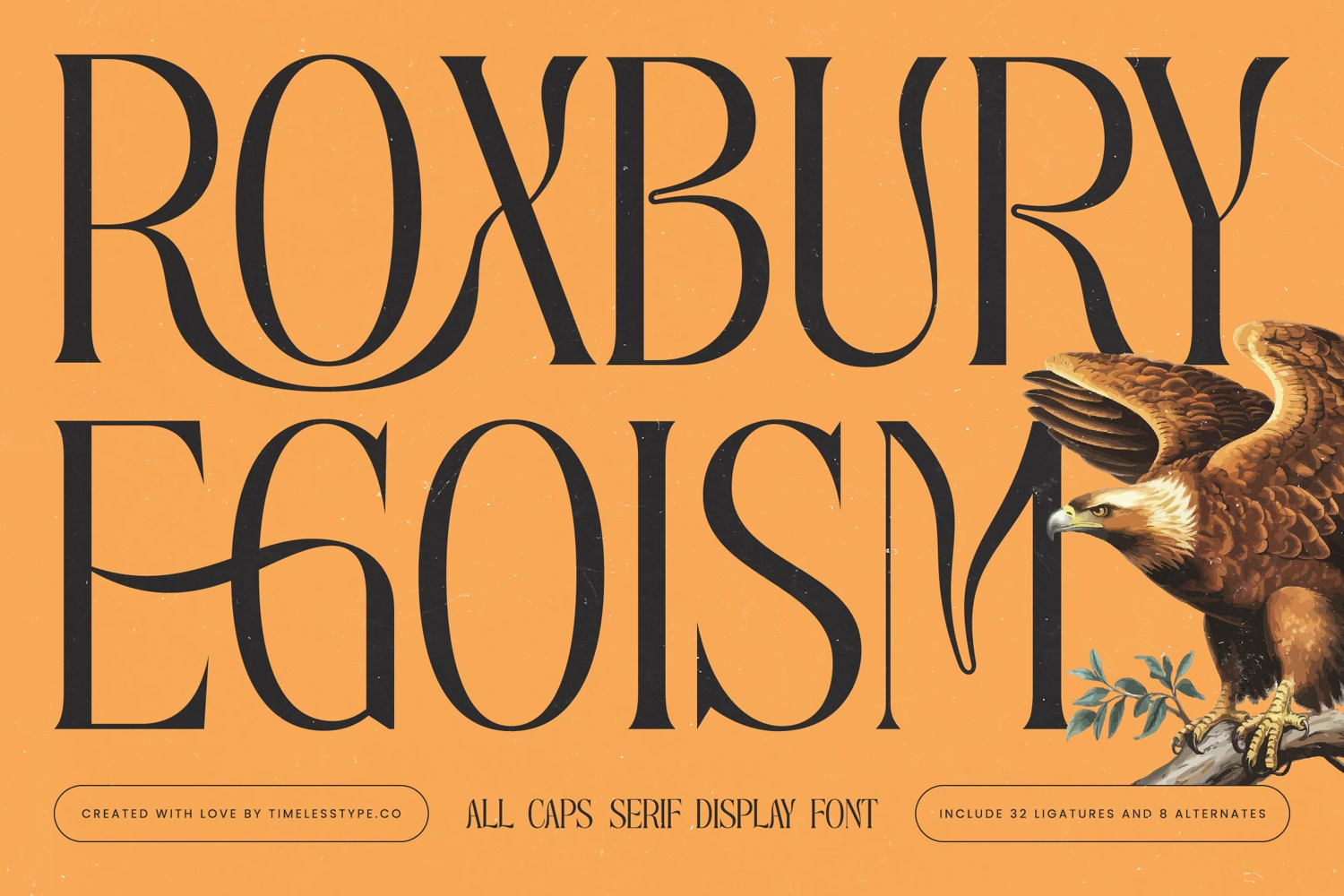
Roxbury Egoism - All Caps Serif Display Font
The Roxbury Egoism Typeface is an all-caps serif display font with a tall, sleek, and elegant style. Featuring 32 ligatures and 8 stylistic alternates, this font is designed to deliver typography that feels dramatic, refined, and full of authority. Its elongated capital letterforms, combined with decorative detailing on select strokes, create a contemporary-classic aesthetic that is ideal for designs aiming to appear strong, luxurious, and sophisticated.
This typeface is highly effective in editorial design, particularly for fashion magazine covers, artistic headlines, and art or history book covers. The inclusion of ligatures adds unique typographic variations, enhancing both elegance and modernity.
In branding and packaging, Roxbury Egoism is an excellent choice for luxury products such as perfumes, wines, jewelry, exclusive fashion, and premium lifestyle brands. Its refined aesthetic ensures a timeless, iconic, and memorable brand identity.
For entertainment and promotional design, this font shines on epic movie posters, classical or jazz album covers, cultural festivals, and theater branding. Its bold and commanding character reinforces visual storytelling with a heroic and majestic aura.
In the realm of digital design, Roxbury Egoism performs seamlessly across social media content, website branding, digital advertising, and motion graphics. With multilingual support, it is perfectly suited for diverse global projects and wide-reaching audiences.
In short, Roxbury Egoism Typeface is an all-caps serif display font created to embody strength, elegance, and classic-modern character. Perfect for editorial, branding, packaging, entertainment, advertising, and digital campaigns, this font elevates typography into a bold, stylish, and authoritative visual icon.